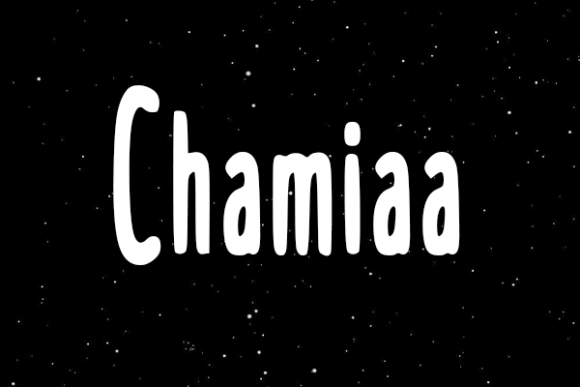
Introduction to Chamiaa Font
Imagine you’re in the middle of a creative project, and you’re struggling to find the perfect font to bring your idea to life. You’ve searched high and low, but nothing seems to capture the essence of your vision. That’s where the Chamiaa Font comes in – a simple yet elegant sans serif typeface that’s sure to elevate your design to the next level.
As a valuable resource for designers, the Chamiaa Font offers a high-quality, free download that’s perfect for a wide range of applications, from film posters to logo designs. With its transparent background, you can easily integrate it into your creative project without any hassle. Whether you’re working on a personal or professional design, the Chamiaa Font is an excellent choice that’s sure to impress.
Key Features of Chamiaa Font
- High-quality, unique font design perfect for creative projects and designs.
- Features a transparent background, allowing for easy layering and customization in designs.
- Optimized for high-resolution displays with a minimum resolution of 300 DPI for crisp and clear typography.
- Designed to be highly legible and versatile, suitable for a wide range of design applications.
- Font size: varies, with multiple weights and styles available for added flexibility and creativity.
Honest Review: Chamiaa Font
As a designer, I’m always on the lookout for high-quality design resources to elevate my creative projects. The Chamiaa Font has been a recent addition to my collection, and I’m excited to share my thoughts on this versatile font.
What works well with the Chamiaa Font is its sleek and modern aesthetic, making it perfect for a wide range of design projects. The font’s free download option is also a major plus, allowing designers to experiment with the font without breaking the bank. The font’s transparent background feature is another great advantage, giving designers the flexibility to layer the font over various backgrounds.
- ✨ Versatile design suitable for modern and sleek projects
- ✨ Free download option for designers
- ✨ Transparent background feature for flexible design
While the Chamiaa Font is a solid addition to any design library, there are a few limitations to consider:
- ⚠️ Limited font styles and weights available
- ⚠️ Not suitable for more traditional or formal design projects
Overall, the Chamiaa Font is a great resource for designers working on modern and creative projects. While it may not be the best fit for every design project, its sleek aesthetic and flexible features make it a valuable addition to any design library.
The Chamiaa Font is a high-quality design resource ideal for creative projects. With its transparent background, it can be easily integrated into various design platforms.
Tips for Getting the Most Out of Chamiaa Font
To get the most out of the Chamiaa Font, experiment with different font sizes, colors, and styles. You can also combine the font with other design elements to create a unique and visually appealing design.
The Chamiaa Font is ideal for a variety of creative projects, including:
- Typography
- Branding
Q: Does the Chamiaa Font have a transparent background?
Yes, the Chamiaa Font features a transparent background, making it ideal for use on high-quality designs that require a clean and minimalist aesthetic. This feature allows you to easily combine the font with other design elements and create a visually striking effect.